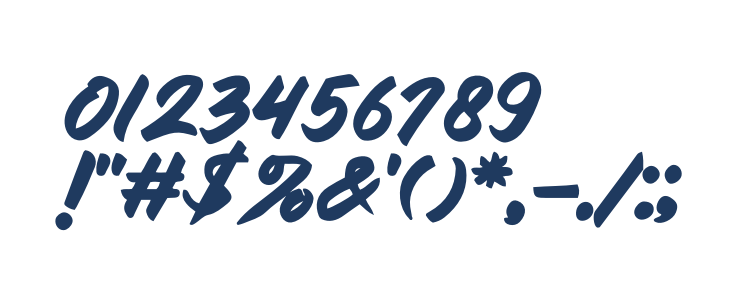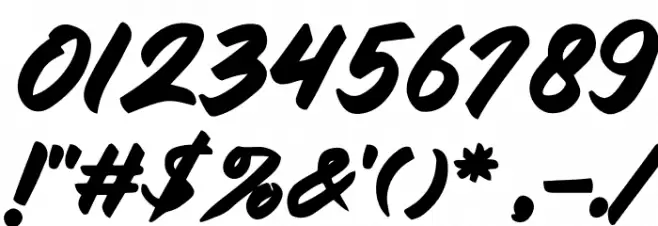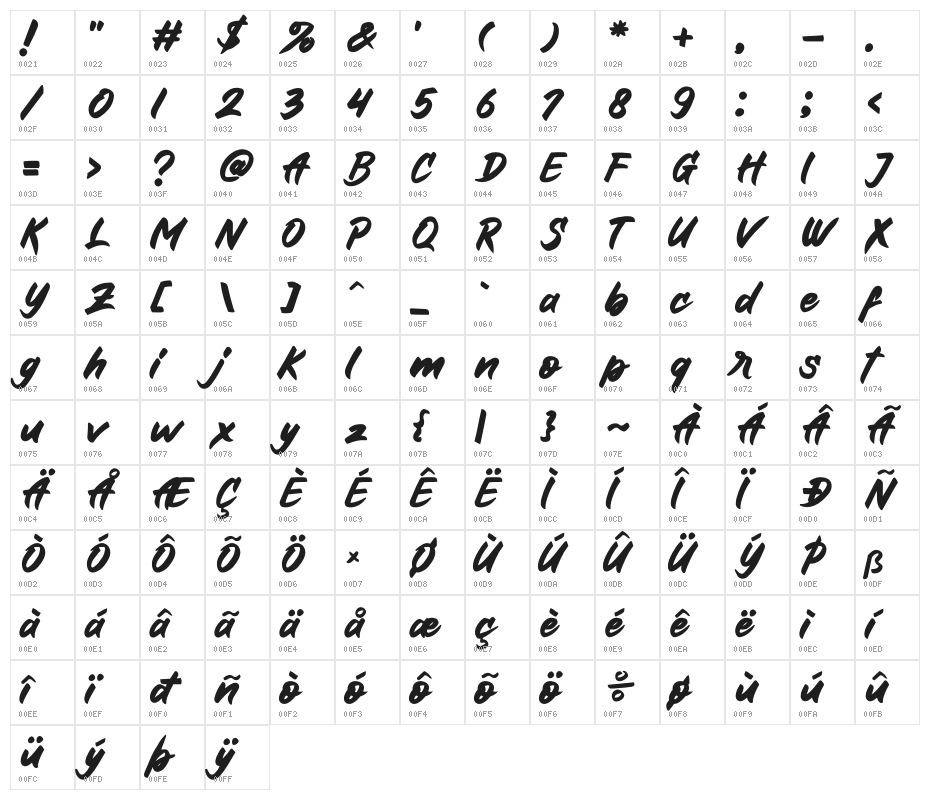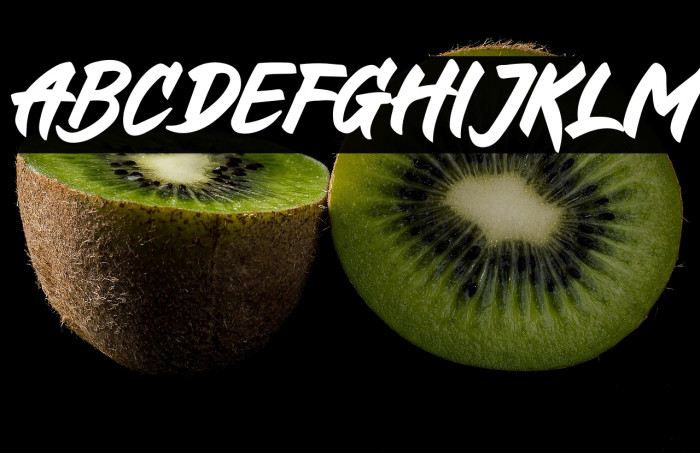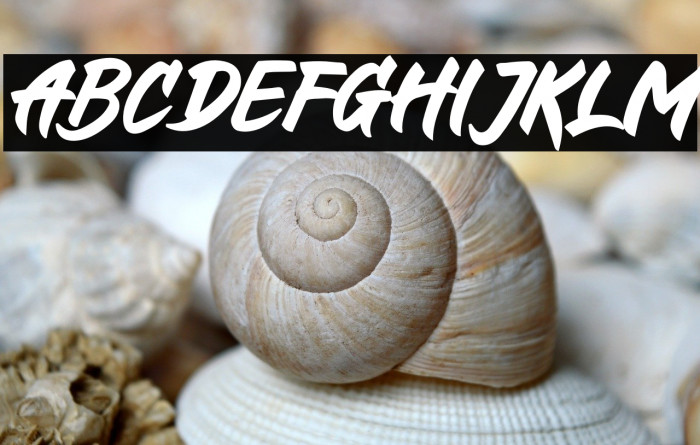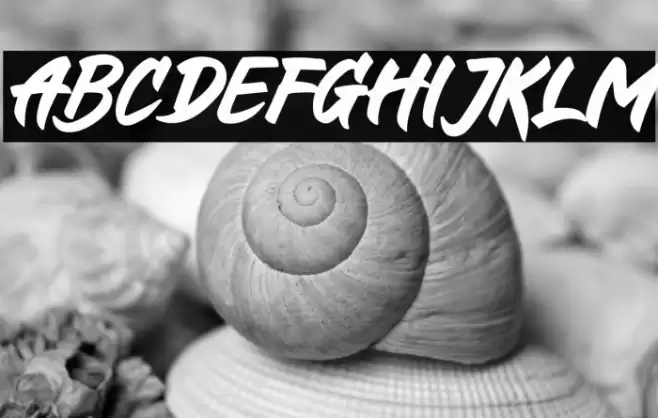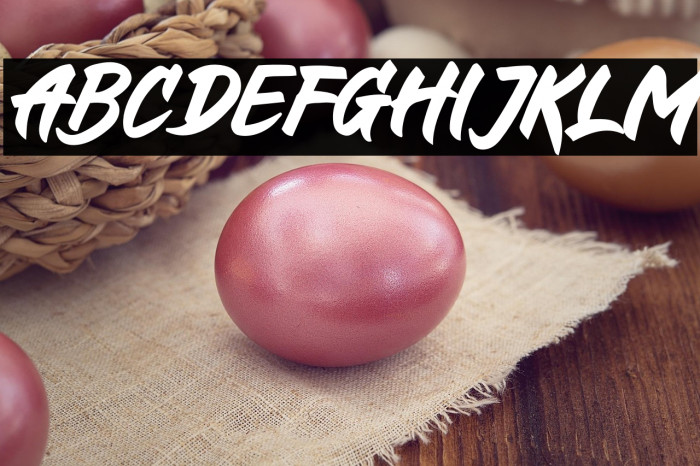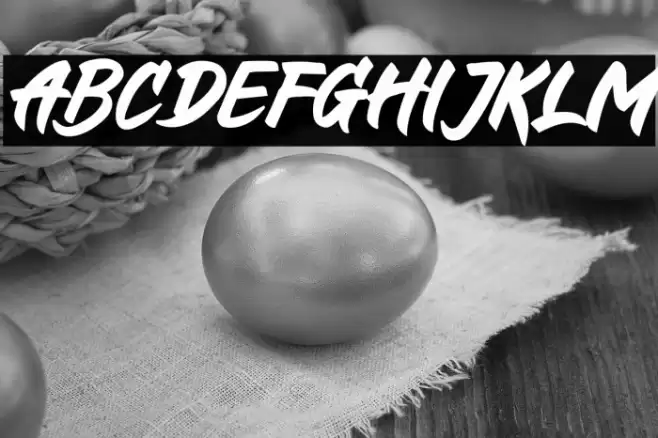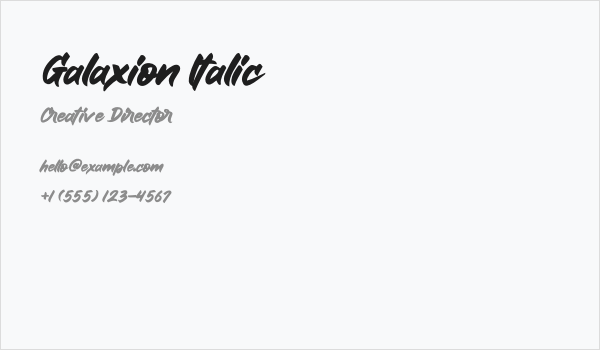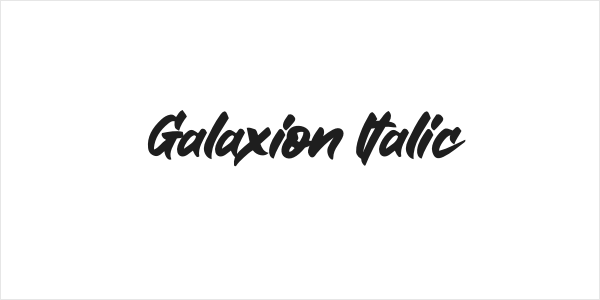
Galaxion Italic Font
Galaxion Italic Description
This font features a bold and dynamic script style with a strong italic slant, giving it a sense of motion and energy. The characters are connected in a fluid manner, reminiscent of handwritten calligraphy. The strokes are thick and consistent, providing a robust and impactful appearance. The uppercase letters are slightly larger, maintaining a harmonious balance with the lowercase letters. Numbers and special characters are designed to match the overall style, ensuring uniformity across all elements. This font is ideal for creating eye-catching designs that require a personal and expressive touch.